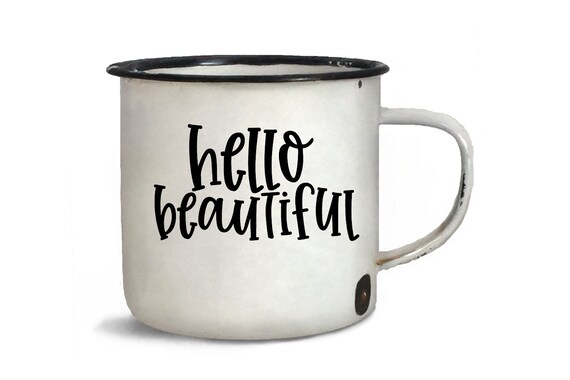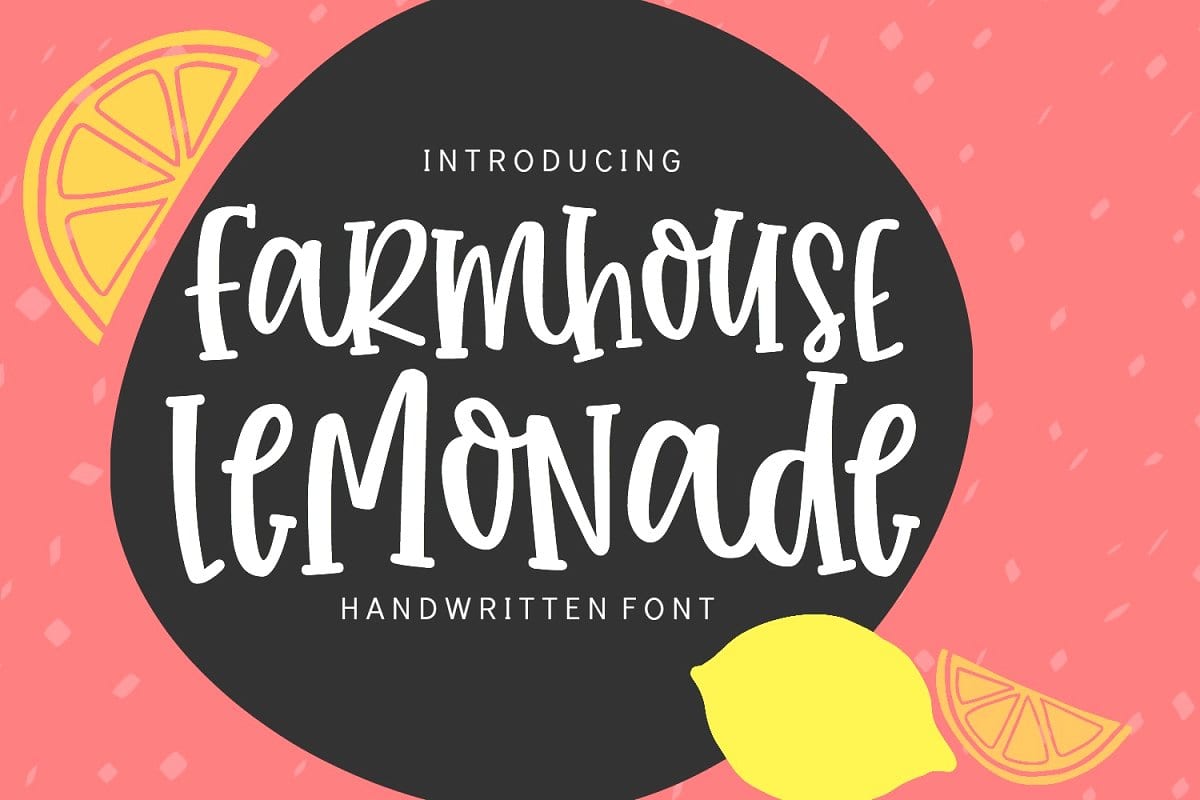
Farmhouse style fonts are perfect for making wood signs and decorating the inside or outside of your country home. Download ss farmhouse lemonade otf (400) font.
185,421 downloads (29 yesterday) free for personal use. It turns into a sensitive individual including clearness with the mix of intense and italic strokes. Sweet lemonade font | dafont.com english français español deutsch italiano português.
Farmhouse lemonade digital font download for commercial use, handwritten typeface font design open type true type svgbliss 5 out of 5 stars (1,177) sale. I've made this font as smooth as possible, reducing the amount of nodes in each glyph to ensure optimal cutting with cricut, silhouette or other craft machines. Farmhouse lemonade embroidery font cute fonts alphabet.
A handwritten font, calligraphy font for cricut, farmhouse font, cricut font work on cricut, iphone, mac, win kaleungchiang 4.5 out of. It is a perfect choice for crafters with cutting machines, as it is ultra smooth for optimal cutting performance. Farmhouse lemonade handwritten font for crafters.
Digitizingwithlove 5 out of 5 stars (5,980). Farmhouse lemonade handwritten font is a fun, bouncy handwritten font bursting with handwritten charm and personality! I've made farmhouse lemonade as smooth as possible, reducing the amount of nodes in each glyph to ensure optimal cutting with cricut, silhouette or other craft machines.
Ss farmhouse lemonade otf (400) by sabrinaschleiger similar free fonts for ss farmhouse lemonade otf (400) Farmhouse lemonade handwritten font is a fun, bouncy handwritten font that is bursting with handwritten charm & personality! See more ideas about cricut crafts, free svg fonts, free svg.
A collection of free farmhouse fonts that you can download and use in cricut design space. But any donation are very appreciated. Opent type (otf) & true type (ttf)
Farmhouse lemonade is a fun, bouncy handwritten font bursting with handwritten charm and personality! What fonts are similar to ss farmhouse lemonade otf (400)? Download $ free > personal use vtks blackhair.
Download lemonade icg bold font free for windows and mac. $ free > personal use. Ss farmhouse lemonade otf (400) by sabrinaschleiger similar free fonts for ss farmhouse lemonade otf (400) get unlimited access to lemonade™ std regular and over 2,200 other families for only 9.99/month.
38+ farmhouse fonts free download pictures.farmhouse w00 regular font info. Similar free fonts and alternative for ss farmhouse lemonade. It gives an engaging appearance and jam the stylish expense of any sort of work.
Have you gotten your fill of all things farmhouse? It is a perfect choice for crafters with cutting machines, as it is ultra smooth for optimal cutting performance. 100 free fonts alternatives to.
This handwritten font comes with a handful of ligatures & you can alternate lower case and capital letters for a fun unique look! Download the free lemonade font by rlaurendesign. 100 free fonts alternatives to.